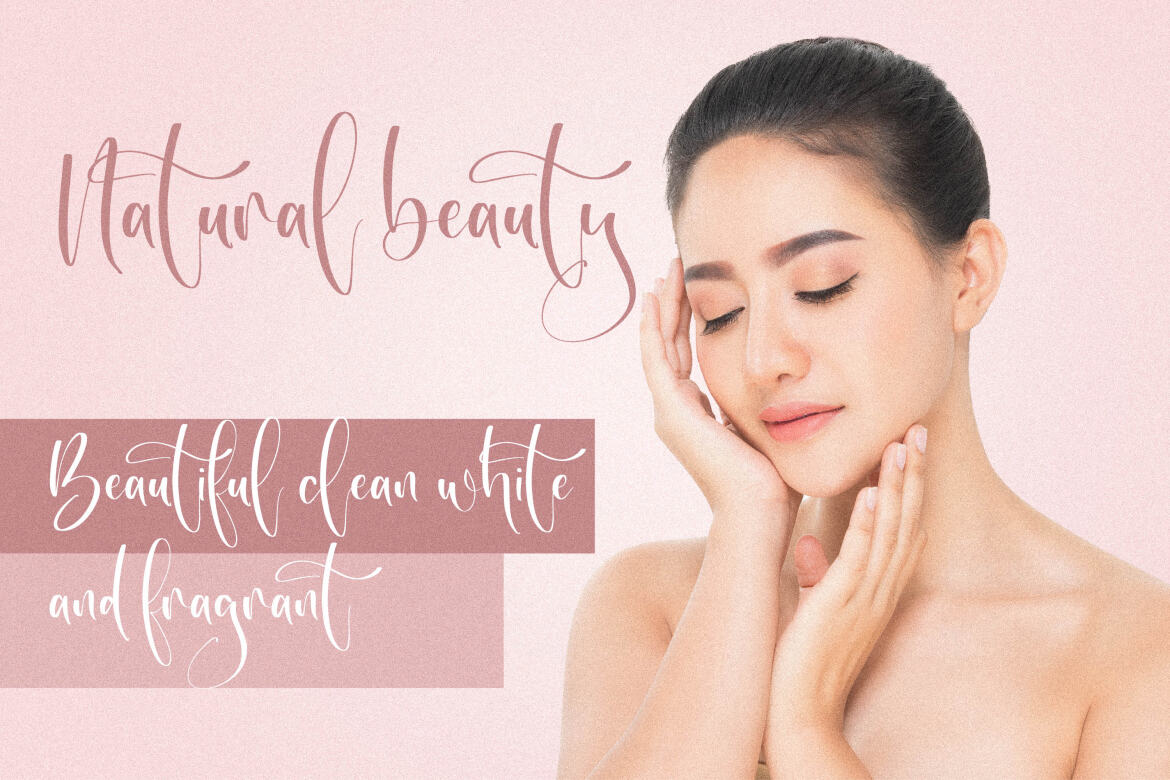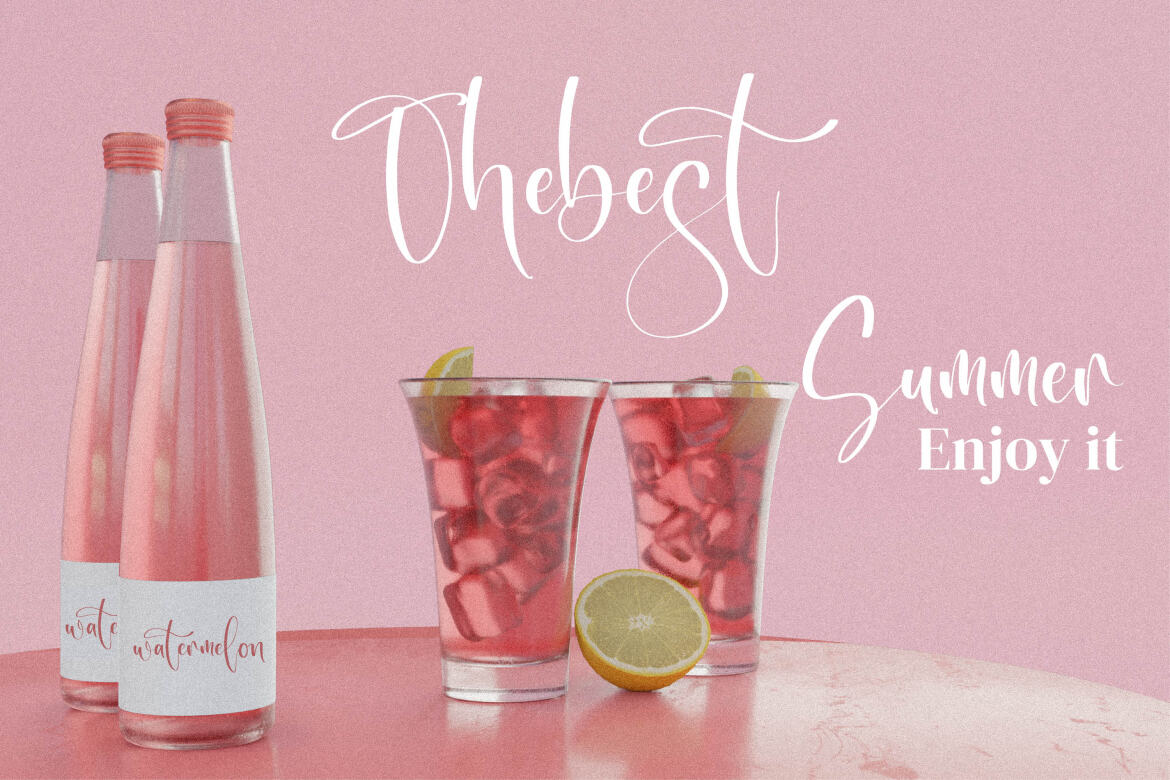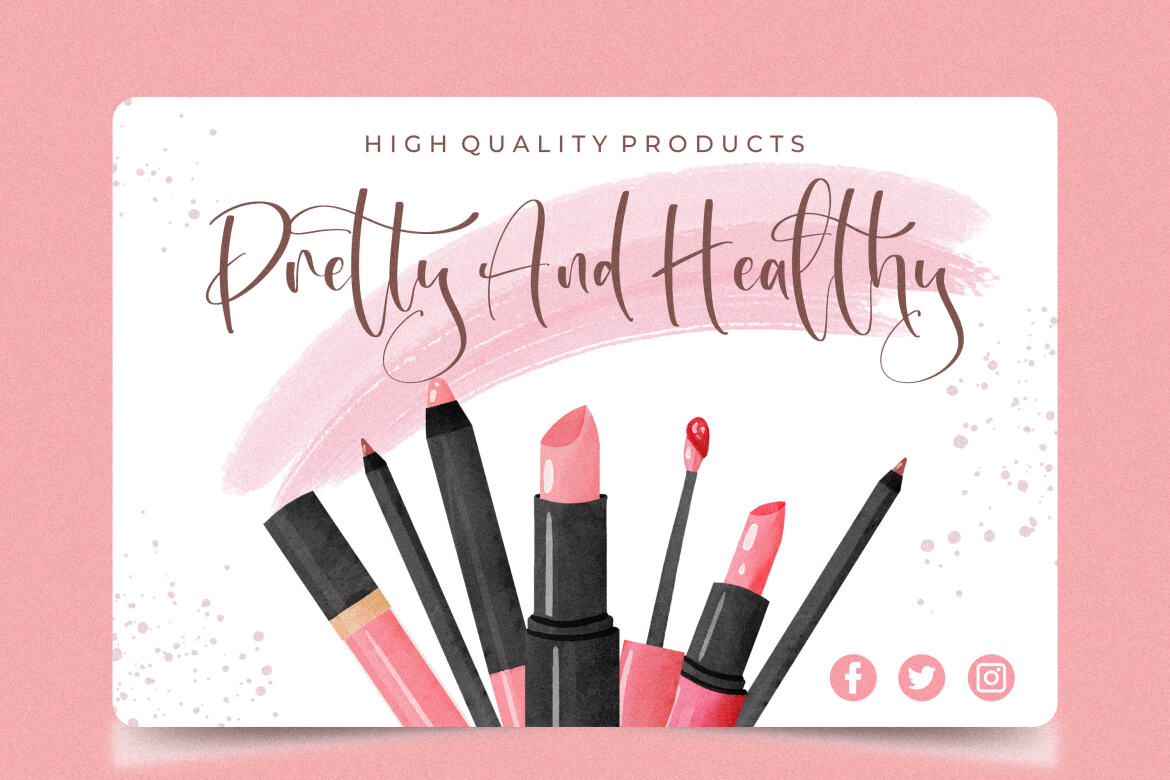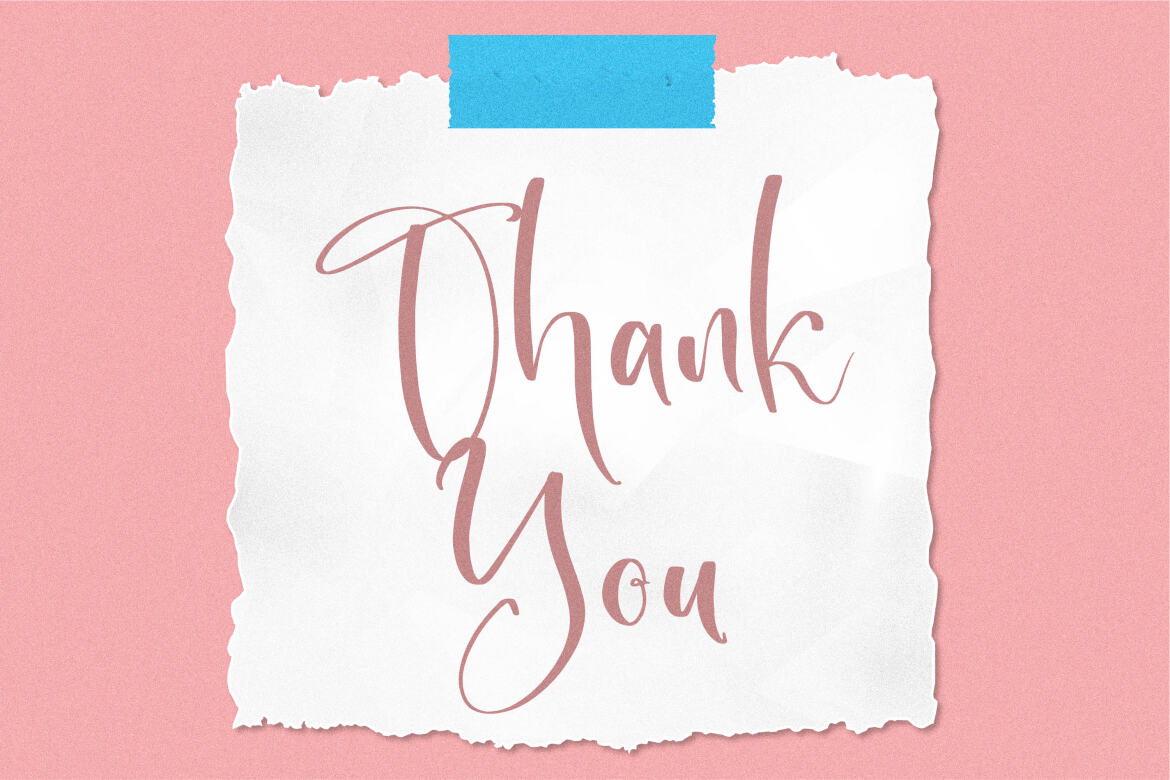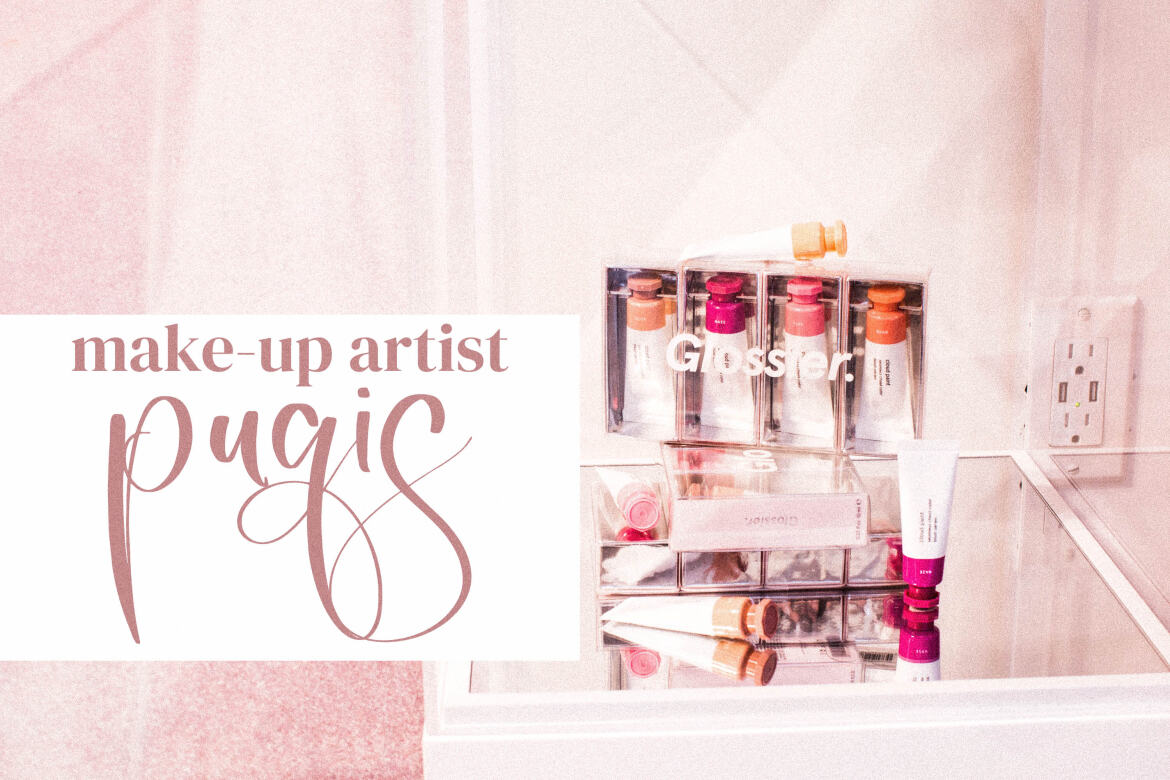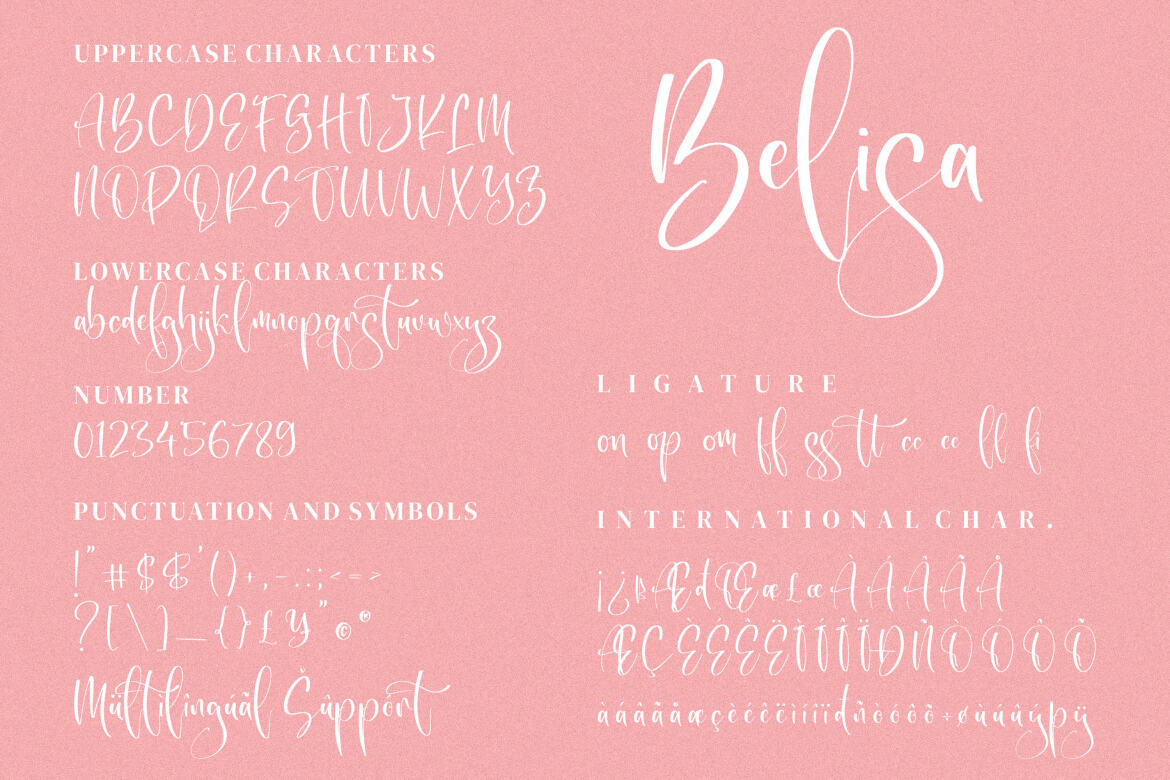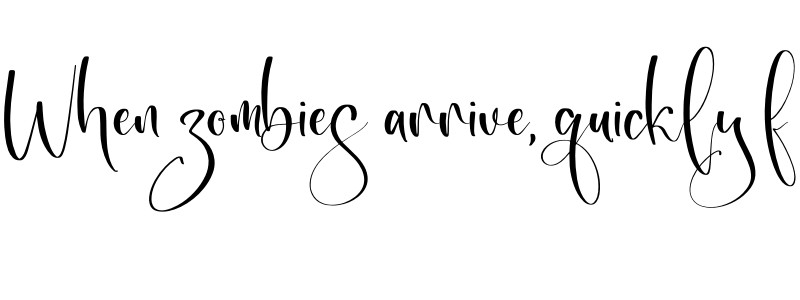
Belisa - FREE Script Font
Belisa– Modern Script Font , from Integritype Studio, is a premium Modern Script Font, suitable for any projects such as: logos, branding projects, homeware designs, product packaging, mugs, quotes, posters, shopping bags, t-shirts, book covers, name card, invitation cards, greeting cards, label, photography, watermark, special events, and all your other luxury projects that need a premium signature taste.